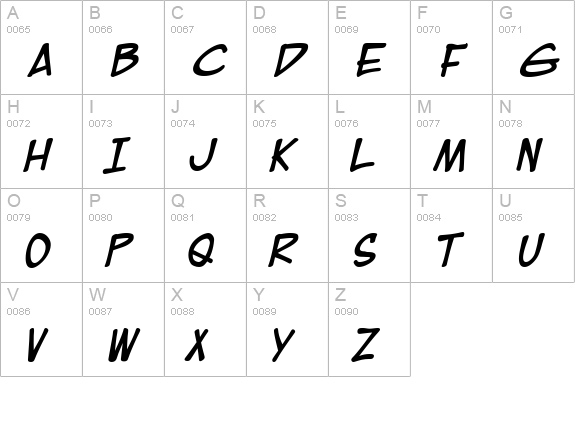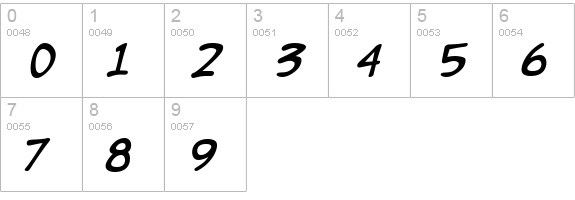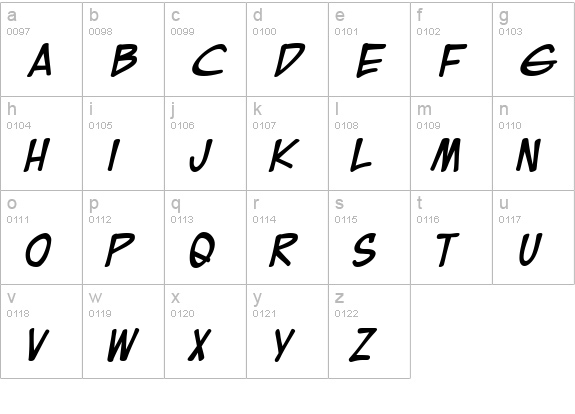
EuroComic Bold Font Details
EuroComic Bold is a strong, high-contrast variant in the EuroComic typeface family \xE2\x80\x94 well suited to headlines, attention-grabbing titles, and strong calls-to-action.
EuroComic Bold is a dynamic and eye-catching font that exudes a sense of modernity and playfulness. Its bold and distinctive design makes it perfect for creating attention-grabbing headlines, posters, and branding materials. The strong, thick strokes of this font convey a sense of confidence and authority, while its rounded edges add a touch of friendliness. One of the best things about EuroComic Bold is that it is available for free download at FontsMarket.com. This means that you can easily access this versatile font and use it in your projects without any cost. Whether you are a graphic designer, a marketer, or a creative professional looking to add a bold and impactful touch to your work, EuroComic Bold is a fantastic choice that won't break the bank. Download it today and unleash your creativity with this striking typeface.